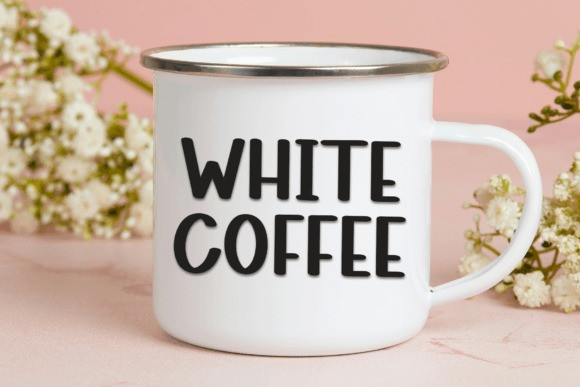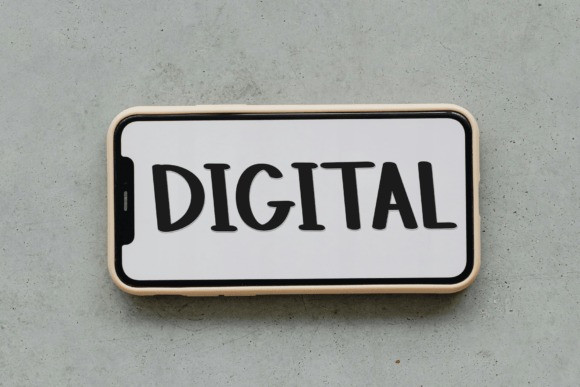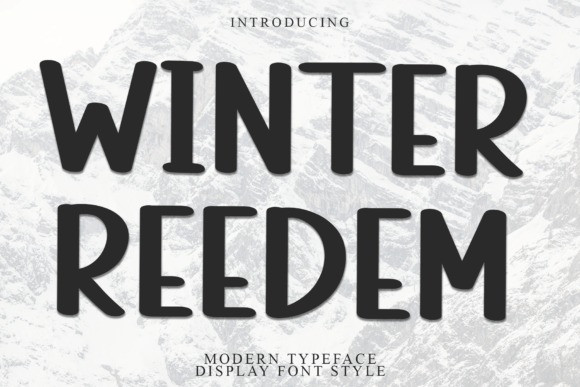
Winter Reedem Font
Winter Reedem Font is a bold, simple, and modern sans-serif font with clean lines and a fun, friendly feel. Perfect for making a statement in winter-themed designs!